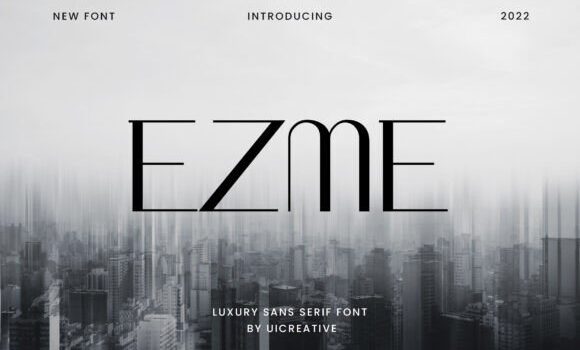
ezme
Ezme Font – Free Download Introduction to Ezme Font Ezme is an elegant sans serif font, that features a very delicate and classy look. 📸 Preview Gallery 6 images 📌 Product Name Ezme Font 👤 Author uicreativenet 📂 Category Explore